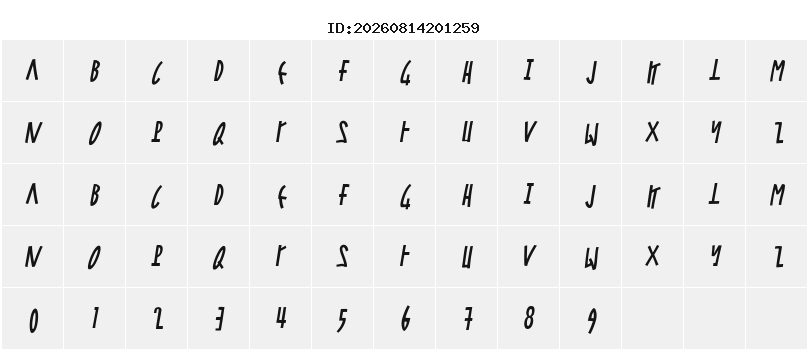
Steel Preview
• Font Name: Steel
About Steel.ttf
Steel.ttf is a modern, elegant sans-serif font designed for ultimate readability and visual harmony. Perfect for branding, headlines, web design, and print materials.